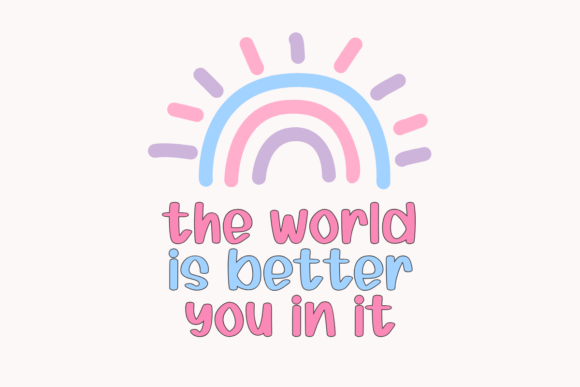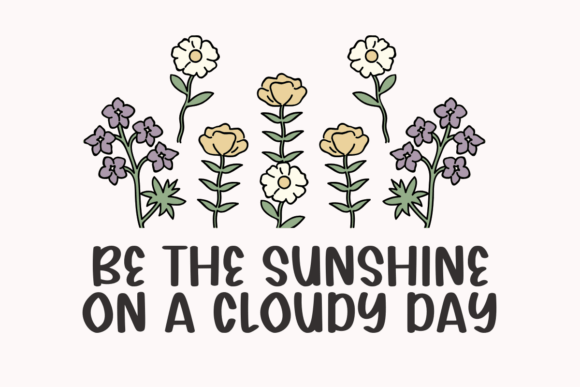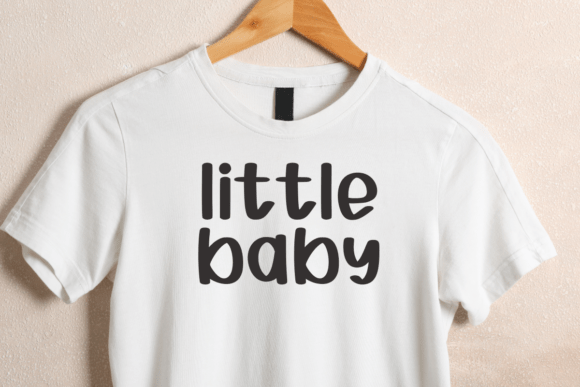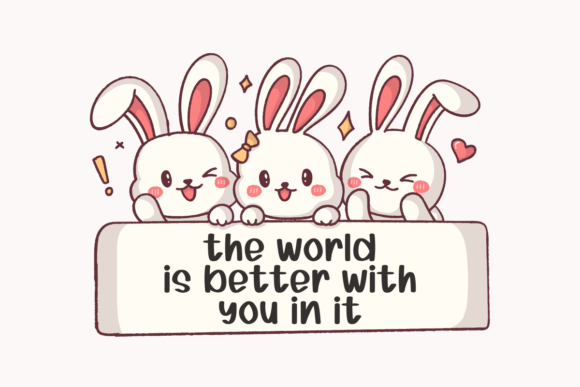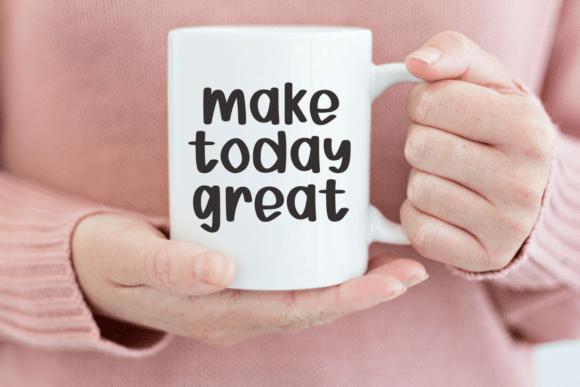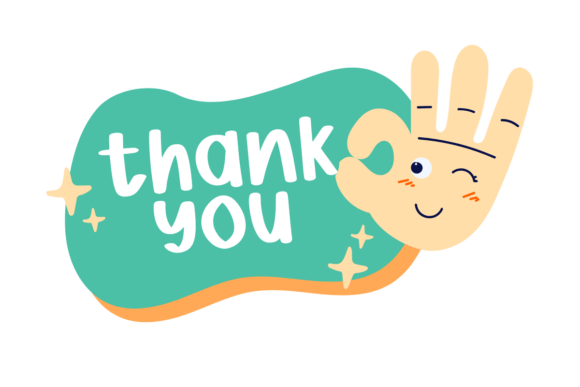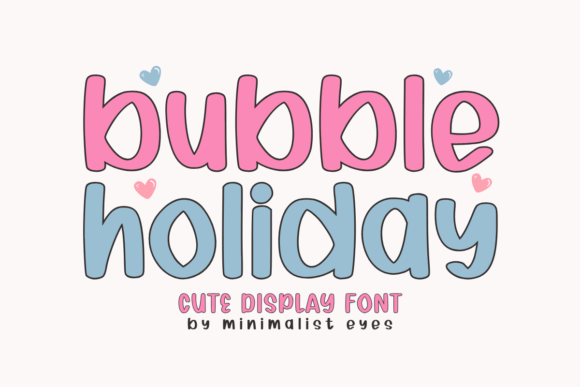
Bringing Joy and Playfulness with Bubble Holiday Font
Have you ever been in the middle of a design project, and suddenly, you just can’t seem to find the right font? I recall a particularly frustrating experience while working on a children’s party invitation. My client wanted something fun, playful, and utterly delightful. That’s when I stumbled upon Bubble Holiday Font. This charming display font has been a game-changer for my designs, and I’m excited to share its magic with you! 🎉
A Personal Review of Bubble Holiday Font
As a designer, I’m always on the lookout for fonts that can bring a unique touch to my projects. Here’s what I love about Bubble Holiday:
• ✨ Soft, rounded letterforms that give off a friendly and approachable vibe
• ✅ Easily readable, even at smaller sizes
• 🎉 Perfect for kid-centric designs, holiday greeting cards, and social media assets
• 🤩 Transforms any message into a celebration with its lighthearted and playful feel
While Bubble Holiday is an amazing font, it’s not without its quirks:
• ⚠️ Limited use in formal or professional contexts due to its playful nature
• 🤔 May not be the best choice for body text due to its display font design
Bubble Holiday comes with a range of OpenType features, glyphs, and stylistic alternates that can help you get the most out of the font. Here are a few tips:
• Use the stylistic alternates to create variations of the font
• Explore the glyphs to add decorative elements to your text
• Take advantage of ligatures to create unique text combinations
The Designer Inspiration Behind Bubble Holiday
Rumor has it that the designer behind Bubble Holiday was inspired by the nostalgia of 90s sticker culture and hand-drawn doodles. They wanted to create a font that would bring joy and playfulness to designs, and I think they’ve succeeded! 🎉
Font Name Bubble Holiday Font
Author Minimalist Eyes
What is Bubble Holiday Font best used for? Bubble Holiday Font is perfect for kid-centric designs, holiday greeting cards, social media assets, and nursery decor.
Is Bubble Holiday Font easy to read? Yes, Bubble Holiday Font is designed to be easily readable, even at smaller sizes.